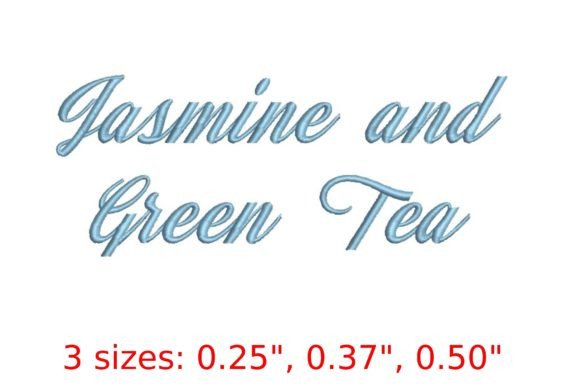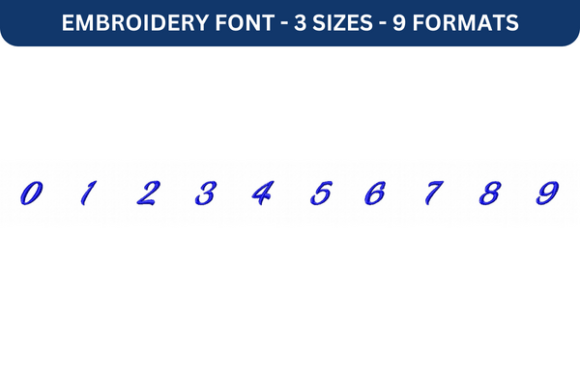
Jasmine and Green Tea Embroidery Font
The Jasmine and Green Tea Embroidery Font is more than just a design—it's an experience. Inspired by the harmonious blend of jasmine and green tea, this script embroidery font brings a unique aesthetic to your stitching projects. Whether you're a hobbyist, a professional designer, or someone who enjoys crafting with purpose, this font offers a way to infuse your work with a sense of calm and elegance.
What makes this font stand out is its ability to capture the essence of floral notes and soothing qualities. The gentle curves and flowing lines reflect the natural beauty of jasmine, while the clean, refreshing feel of green tea adds a modern touch. This combination creates a sensory experience that can elevate your creative output and make your projects more engaging for viewers.
For creators looking to add a personal touch to their designs, the Jasmine and Green Tea Embroidery Font provides a versatile tool. It’s ideal for customizing textiles, creating personalized gifts, or adding a distinctive flair to home décor. The font’s script style allows for both artistic expression and practical use, making it suitable for a wide range of applications.
Enhancing Creativity Through Design
One of the key benefits of using the Jasmine and Green Tea Embroidery Font is its ability to inspire creativity. The font’s elegant script encourages experimentation with different layouts and compositions. For instance, when designing custom clothing or wall art, the fluidity of the font can guide your placement and spacing, helping you achieve a balanced and visually appealing result.
Additionally, the font’s thematic inspiration—rooted in nature and tranquility—can spark new ideas for your projects. If you're working on a line of products that emphasize wellness or mindfulness, incorporating this font can help reinforce your brand’s message. It adds a layer of meaning that resonates with your audience, making your work more relatable and impactful.
Practical Benefits for Stiching Enthusiasts
Moreover, the font includes detailed sizing and stitch information for the letters “A” and “a” in each size. While this serves as a summary, it gives users a clear idea of what to expect in terms of space and complexity. For those who need precise measurements, clicking on the More Sewing Info PDF button provides full dimension details for all 156 letters in the set. This level of detail ensures that users can plan their projects effectively and avoid common pitfalls like overcrowding or misalignment.
Who Benefits Most?
The Jasmine and Green Tea Embroidery Font is particularly well-suited for individuals who value both aesthetics and functionality. Hobbyists who enjoy personal projects will appreciate the font’s artistic quality, while professionals in design, branding, or publishing may find it useful for creating custom labels, logos, or promotional materials.
Entrepreneurs and small business owners can also benefit from this font. Whether you’re launching a boutique, creating handmade goods, or offering embroidery services, the font can help differentiate your offerings and create a cohesive visual identity. Its unique design can attract attention and leave a lasting impression on customers.
Supporting Communication and Presentation
In addition to its visual appeal, the Jasmine and Green Tea Embroidery Font plays a role in strengthening communication and improving presentation. When used in signage, greeting cards, or decorative items, the font conveys a sense of refinement and care. This can be especially beneficial in settings where first impressions matter, such as weddings, events, or retail spaces.
For educators or content creators, the font can enhance the readability and attractiveness of educational materials or blog posts. By incorporating the font into text-based projects, you can make your content more engaging and memorable. It’s a subtle but effective way to add personality and depth to your work.
Considerations and Limitations
While the Jasmine and Green Tea Embroidery Font offers many advantages, it’s important to consider its limitations. The font’s script style may not be suitable for all types of projects, particularly those that require bold or structured typography. Additionally, the font’s intricate design may require more time and skill to stitch, which could be a challenge for beginners.
If you're unsure whether this font is the right fit for your needs, it’s always a good idea to compare it with other options. Exploring different fonts can help you find one that aligns with your goals, whether you’re looking for simplicity, versatility, or a specific aesthetic.
By understanding its strengths and limitations, you can make informed decisions about how to best incorporate it into your projects. Ultimately, the font serves as more than just a design—it’s an opportunity to connect with your audience, enhance your creative process, and bring a sense of harmony to your work.